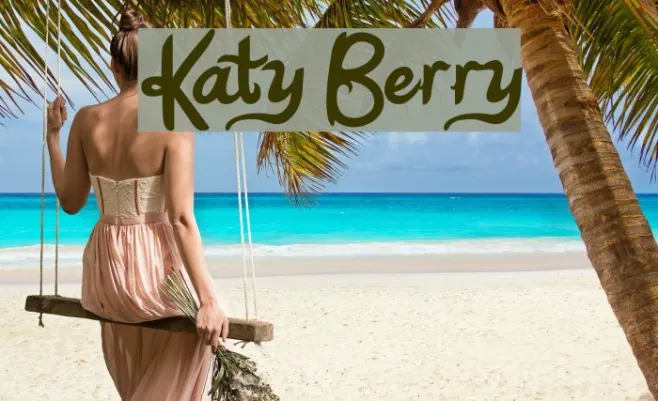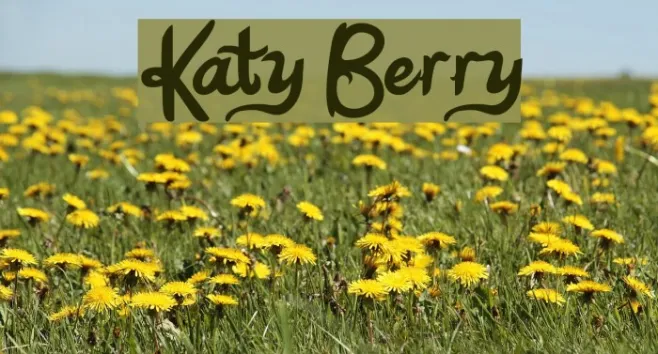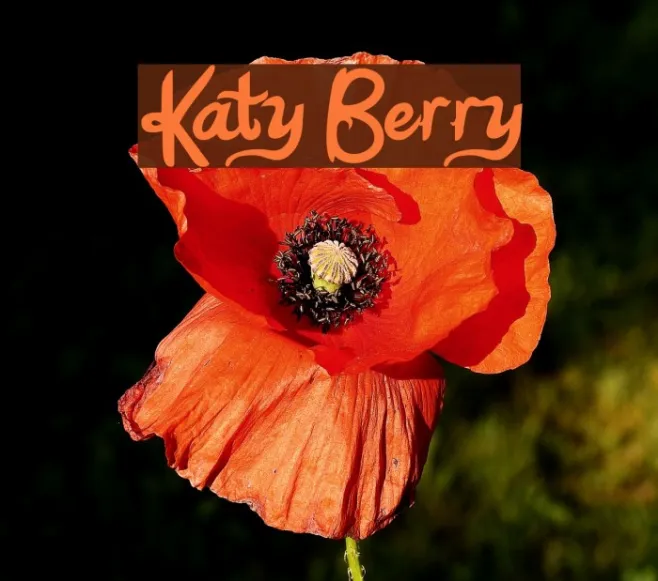
Katy Berry Font
Katy Berry Description
This playful and whimsical font features a unique blend of curves and loops, giving it a lively and energetic appearance. The uppercase letters are bold and expressive, with distinctive flourishes that add character and charm. The lowercase letters maintain the same playful style, with some letters featuring exaggerated loops and swirls. The numbers are consistent with the overall style, offering a fun and approachable look. Special characters are creatively designed, adding to the font's overall appeal. This font is ideal for projects that require a touch of personality and creativity.
Overall StylePlayful, Whimsical
Use CaseHeadlines, Logos, Posters
Proposed ProjectsPerfect for children's books, playful branding, greeting cards, and creative posters.